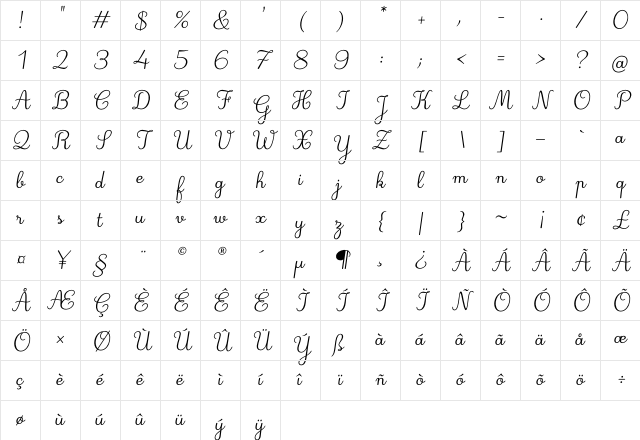
Deuxieme Rang Italic
Design Context for Deuxieme Rang
Deuxieme Rang is a composed and adaptable typeface that performs quietly and consistently across a wide range of design contexts. The slanted form adds forward momentum and visual energy.
Pro Tip: Use Deuxieme Rang for emphasis, pull quotes, and subheadings where its slanted energy can add rhythm to the layout.